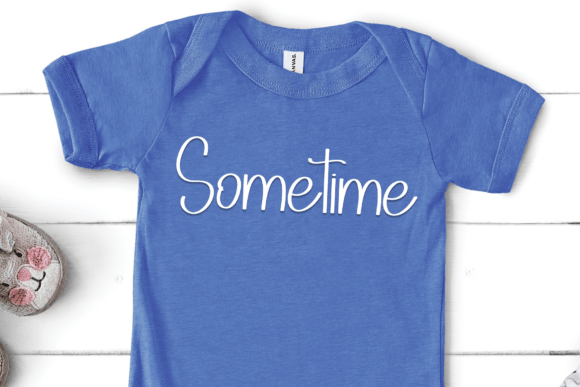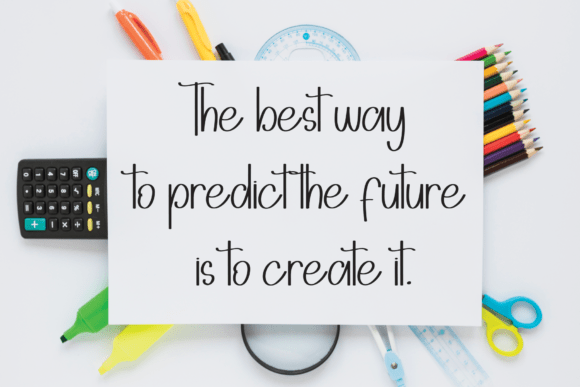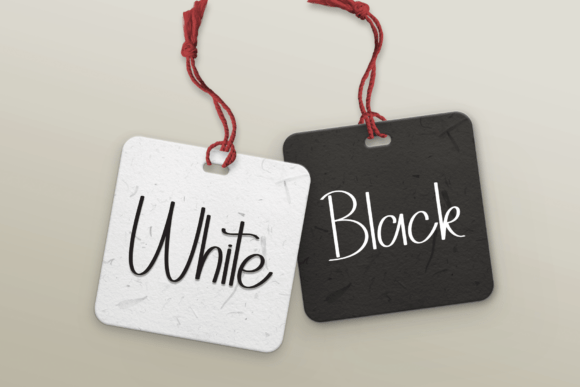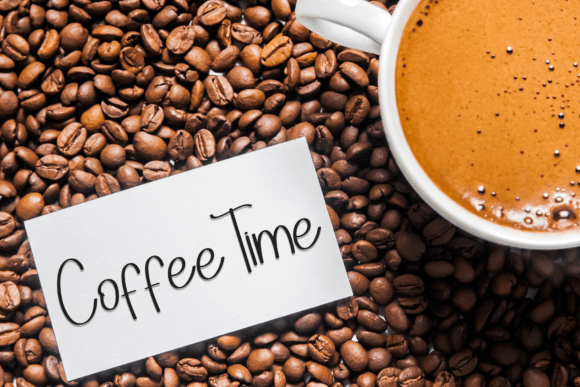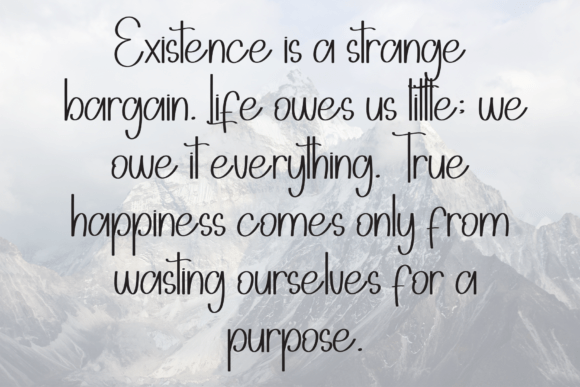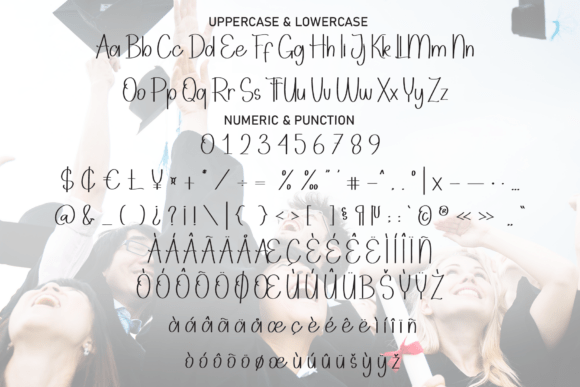
Introducing Graduation Font: Elevate Your Designs with Elegance and Charm
Are you looking for a font that adds a touch of sophistication and refinement to your designs? Look no further than Graduation Font, a stylish handwritten script font that exudes elegance and charm. With its fluid, graceful strokes, Graduation Font is perfect for designers and crafters seeking to create beautiful branding, invitations, and stationery.
The Characteristics of Graduation Font
Graduation Font boasts smooth curves and a natural flow, creating a timeless and refined look for any design. Its fluid strokes give it a sense of movement and energy, while its elegant letterforms evoke a sense of sophistication and luxury. Whether you’re designing a logo, creating wedding invitations, or crafting a brand identity, Graduation Font is the perfect choice.
Perfect for Branding, Invitations, and Stationery
Graduation Font is a versatile font that can be used in a variety of design applications. For branding, it adds a personal and sophisticated touch to logos, business cards, and letterheads. For invitations, it creates a beautiful and elegant design that’s perfect for weddings, baby showers, and other special occasions. For stationery, it adds a touch of refinement and sophistication to notebooks, journals, and greeting cards.
Why Choose Graduation Font?
There are many reasons why designers and crafters choose Graduation Font for their projects. Here are just a few:
- Elegance and Charm: Graduation Font exudes elegance and charm, making it perfect for designs that require a touch of sophistication.
- Versatility: Graduation Font can be used in a variety of design applications, from branding to invitations to stationery.
- Timeless Look: The smooth curves and natural flow of Graduation Font create a timeless look that’s perfect for designs that need to stand the test of time.
- Easy to Read: Despite its elegant and cursive nature, Graduation Font is easy to read, making it perfect for designs that require a clear and legible font.
Tips for Using Graduation Font
Here are a few tips for using Graduation Font in your designs:
- Use it as a headline font: Graduation Font is perfect for headlines and titles, where its elegance and charm can shine.
- Pair it with a sans-serif font: For body text, pair Graduation Font with a sans-serif font to create a beautiful contrast.
- Experiment with colors: Graduation Font looks beautiful in a variety of colors, from metallic ink to pastel hues.
- Use it for decorative elements: Graduation Font can be used for decorative elements, such as borders, frames, and other design elements.
Graduation Font is a beautiful and elegant handwritten script font that’s perfect for designers and crafters seeking to add a touch of sophistication and refinement to their designs. With its fluid, graceful strokes and timeless look, Graduation Font is perfect for branding, invitations, and stationery. Whether you’re designing a logo, creating wedding invitations, or crafting a brand identity, Graduation Font is the perfect choice.